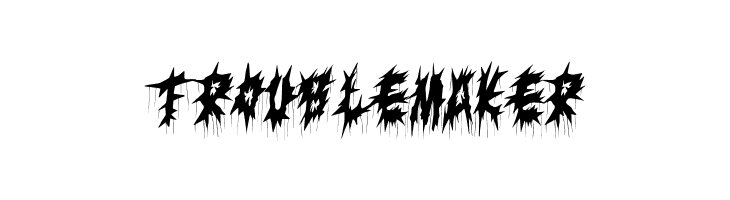
A bold, jagged font with sharp, thorny edges and an aggressive style.
A bold, geometric font with sharp angles and a modern aesthetic.
A bold, futuristic italic font with angular shapes and tight spacing.
A lively handwritten font with fluid, cursive strokes and a dynamic presence.
A bold, geometric font with strong, angular lines and a modern aesthetic.
A bold, playful handwritten font with rounded, irregular characters.
Bold, semi-condensed font with a unique left-leaning italic slant and folder-like character shapes.
A bold, distressed font with a vintage, textured appearance.
Bold, modern display font with geometric cuts.